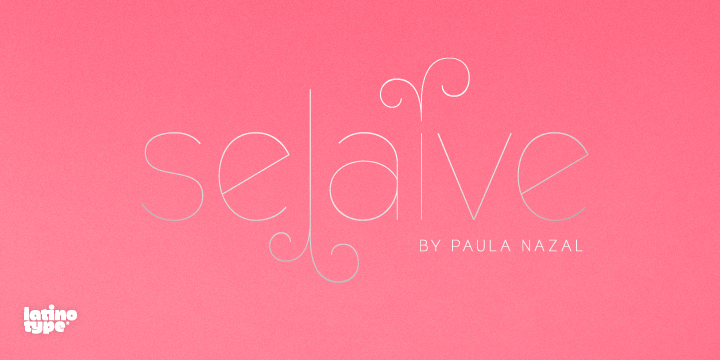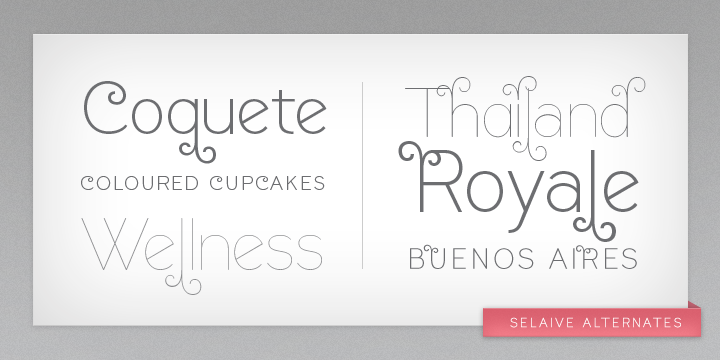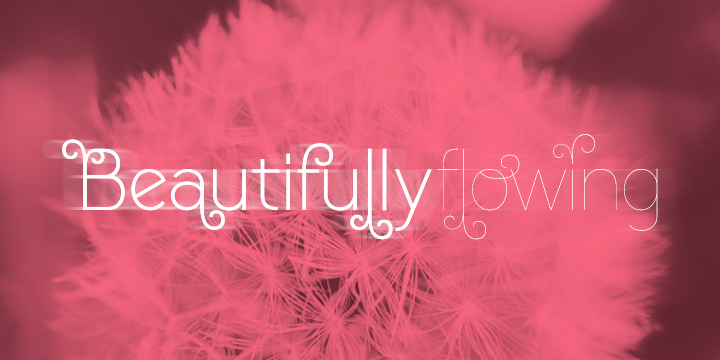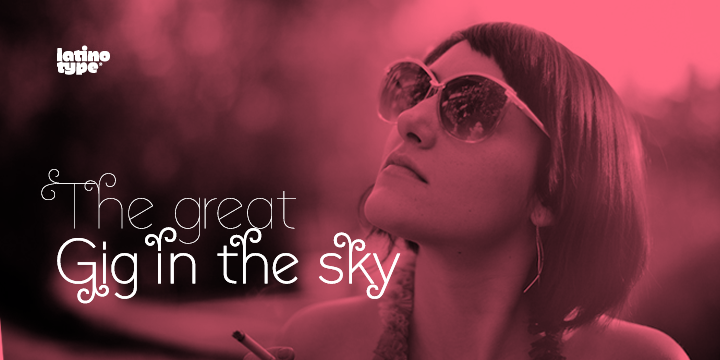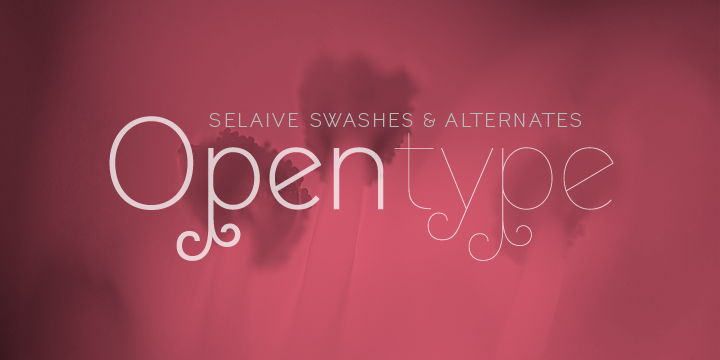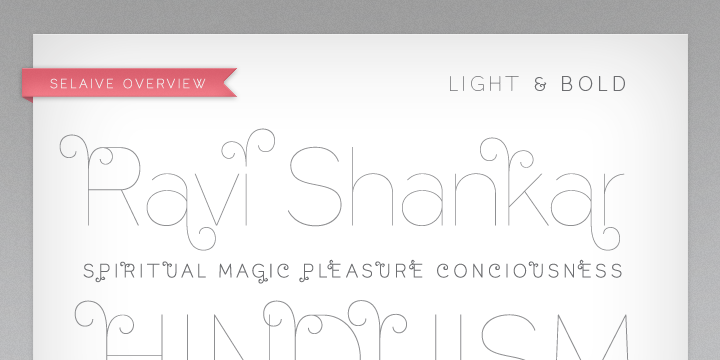
Selaive is a sans serif font family. This typeface has two styles and was published by Latinotype.
Selaive is a geometric typeface that has an air of rebelliousness. The thick and thin versions give you the chance to play a coquettish and seductive game. Its flourishes make it a very dynamic typeface when composing a text, ideal for those who want to add a personal and glamorous touch to their compositions. Selaive is an excellent choice for fashion magazines, logotypes and shops. Languages include: Basic Latin, Western European, Euro, Catalan, Baltic, Turkish, Central European, Romanian and Pan Africa Latin.